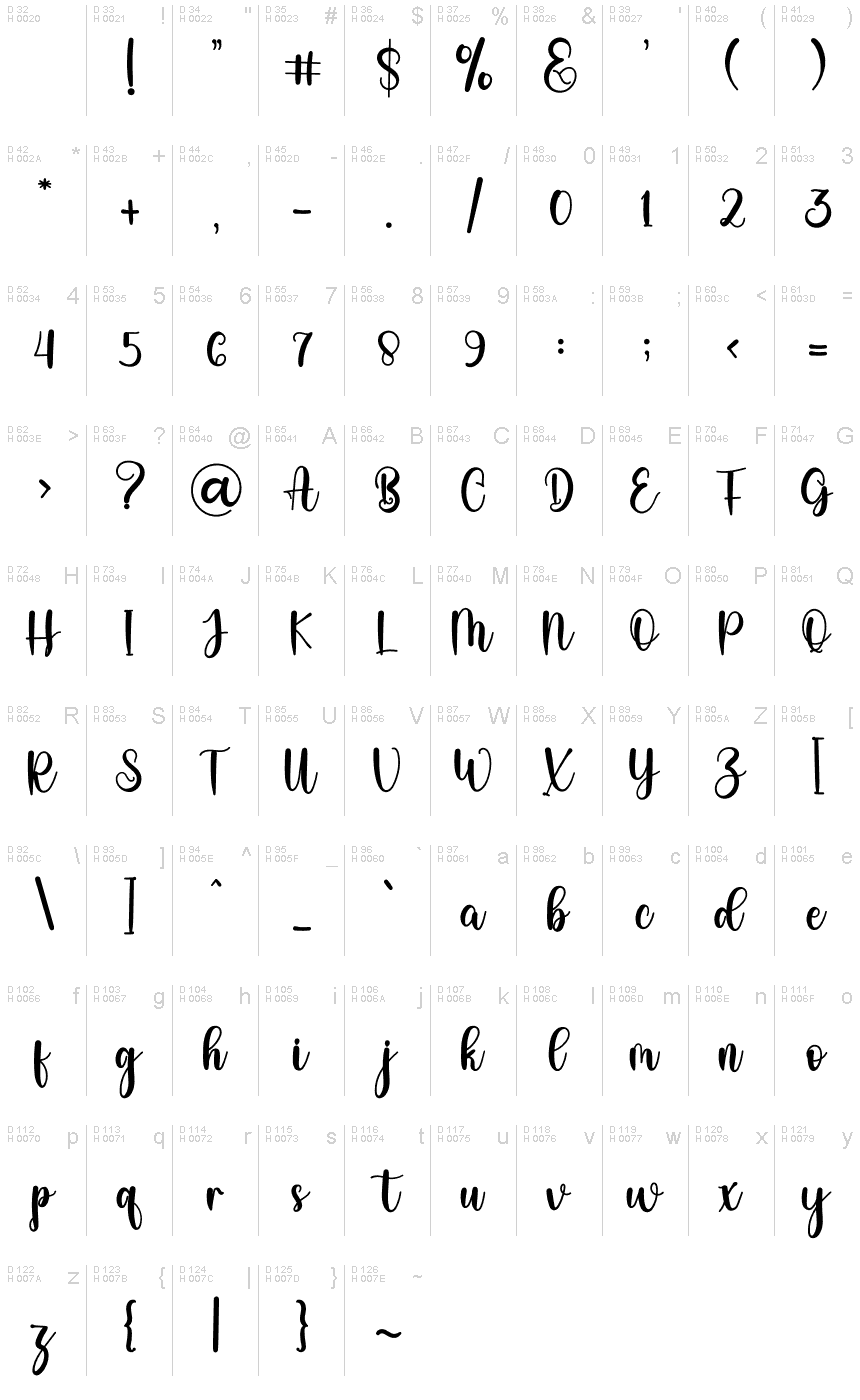
Snowhite
Snowhite, the captivating handwritten font by FreshtypeINK, adds a touch of whimsy to any project. With its semi-bold weight, Snowhite strikes the perfect balance between elegance and playfulness. Ideal for branding, invitations, and editorial designs, this font effortlessly infuses creativity into logos, packaging, and social media graphics. Its unique style lends itself beautifully to children's books, greeting cards, and wedding stationery. Snowhite's versatility knows no bounds – bring a touch of enchantment to your next project with this delightful handwritten font.